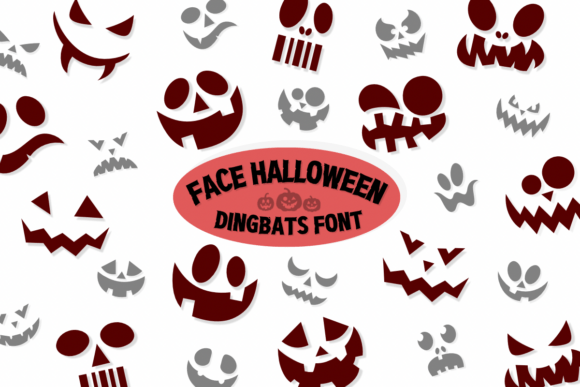
Face Halloween Font: Add a Spooky Touch to Your Festive Creations
Halloween is just around the corner, and what better way to get into the spooky spirit than with a fun and festive font? Look no further than the Face Halloween font, a delightful dingbats font that’s perfect for adding a touch of eerie elegance to your Halloween-themed creations. In this article, we’ll take a closer look at the Face Halloween font, its features, and how you can use it to make your festive designs stand out.
What is Face Halloween Font?
Face Halloween font is a unique dingbats font that’s specifically designed for Halloween enthusiasts. It’s a fun and playful font that’s packed with spooky symbols, including jack-o’-lanterns, ghosts, bats, and more. With its wide range of Halloween-themed characters, this font is perfect for creating festive designs, from party invitations to social media graphics.
Why Use Face Halloween Font?
So, why choose Face Halloween font for your festive creations? Here are just a few benefits of using this fantastic font:
- Unique and eye-catching: Face Halloween font is unlike any other font out there. Its quirky and playful design is sure to grab attention and add a touch of personality to your designs.
- Fully customizable: With Face Halloween font, you can customize your designs to your heart’s content. Experiment with different colors, sizes, and styles to create a look that’s all your own.
- Perfect for Halloween: Whether you’re creating designs for a Halloween party, a spooky social media campaign, or simply want to get into the holiday spirit, Face Halloween font is the perfect choice.
Design Ideas Using Face Halloween Font
Now that we’ve covered the benefits of Face Halloween font, let’s take a look at some design ideas to get you started:
- Halloween party invitations: Create spooky and inviting party invitations that set the tone for a howling good time.
- Social media graphics: Add a touch of Halloween spirit to your social media profiles with festive graphics and posts.
- Blog posts and articles: Use Face Halloween font to add a playful touch to your Halloween-themed blog posts and articles.
- Halloween crafts: Get creative with Halloween crafts, such as making spooky signs, decorations, or gift tags.
Pairing Face Halloween Font with Other Fonts
To take your designs to the next level, try pairing Face Halloween font with other fonts. Here are some font pairing ideas to get you started:
- Pair with a sans-serif font: Pair Face Halloween font with a clean and modern sans-serif font, such as Arial or Helvetica, for a bold and eye-catching look.
- Pair with a script font: Combine Face Halloween font with a elegant script font, such as Pacifico or Great Vibes, for a sophisticated and spooky look.